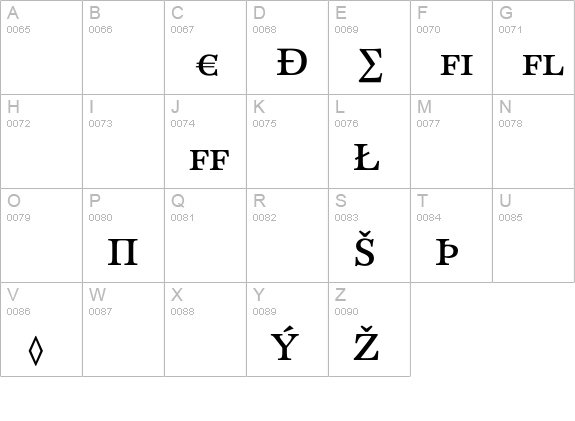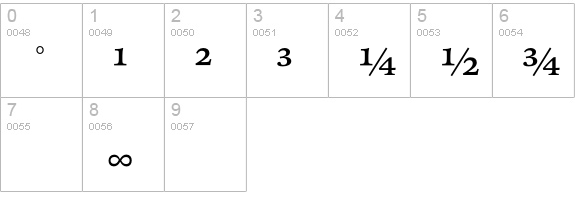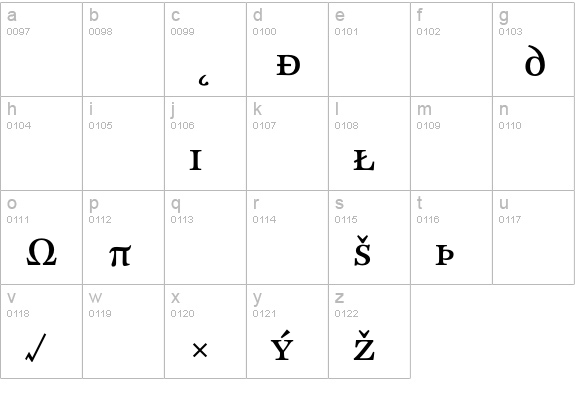
CliffordSix-CapsExpert font is a stunning display typeface that exudes elegance and sophistication. With its intricate details and unique design, this font is perfect for creating eye-catching headings and titles. The sharp lines and bold shapes of CliffordSix-CapsExpert make it a standout choice for any design project that requires a touch of class. What sets CliffordSix-CapsExpert apart is its versatility - it can be used in a variety of contexts, from branding to editorial design. Whether you're working on a sleek corporate identity or a high-end fashion magazine spread, this font will elevate your project to the next level. And the best part? CliffordSix-CapsExpert is completely free to download at FontsMarket.com. Yes, you read that right - you can get your hands on this exquisite font without spending a dime. So why wait? Add CliffordSix-CapsExpert to your font collection today and let your creativity soar.